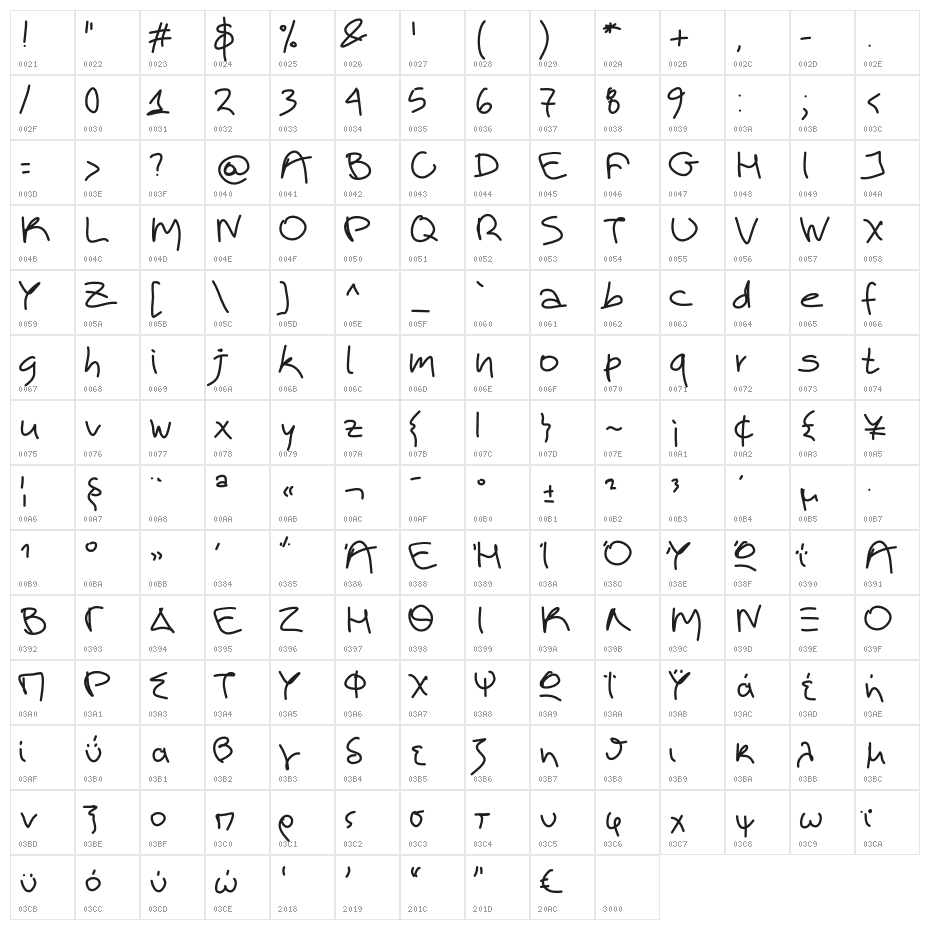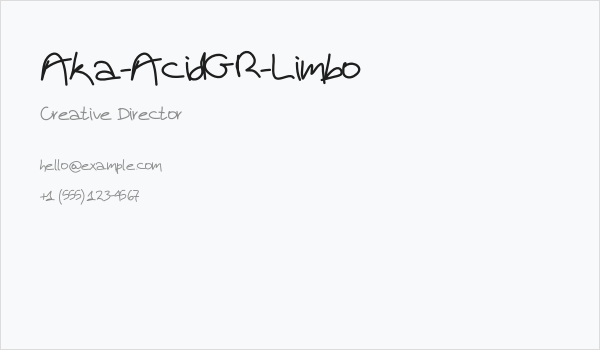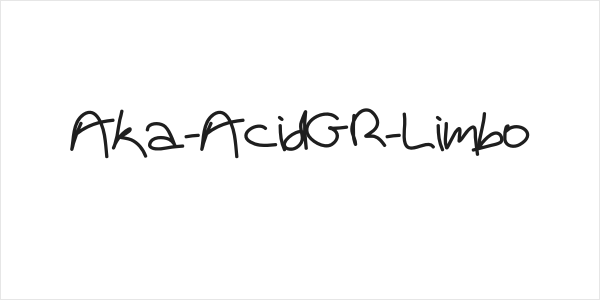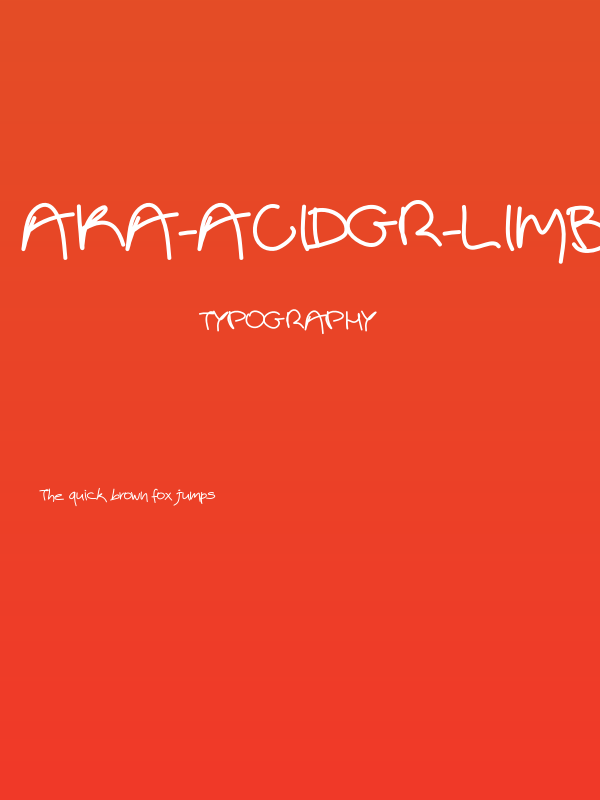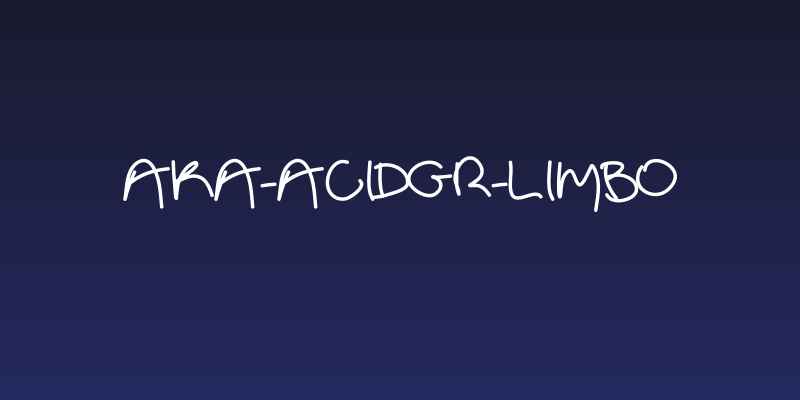
Aka-AcidGR-Limbo Font
Aka-AcidGR-Limbo Description
This font exhibits a playful and energetic handwritten style, characterized by its irregular, flowing strokes and casual appearance. The letters are slightly slanted, adding to the dynamic feel, while the varying stroke thickness gives it a lively and spontaneous look. The uppercase and lowercase letters maintain a consistent style, with rounded edges and a slightly exaggerated form. Numbers and special characters follow the same playful aesthetic, making the font suitable for creative and informal applications.
| Use Case | Logos, Headlines, Informal Text |
| Proposed Projects | Ideal for children's book covers, playful branding, casual invitations, and creative social media graphics. |